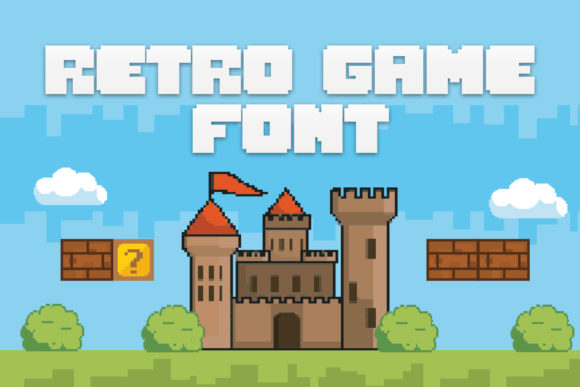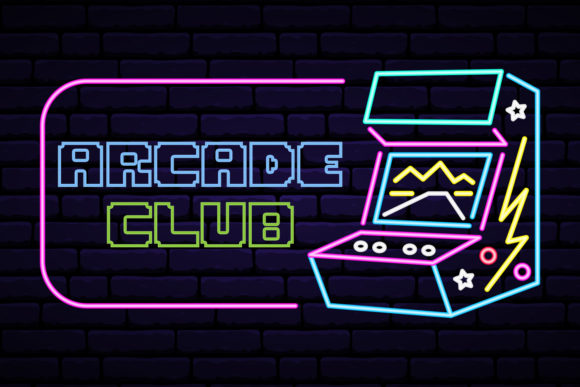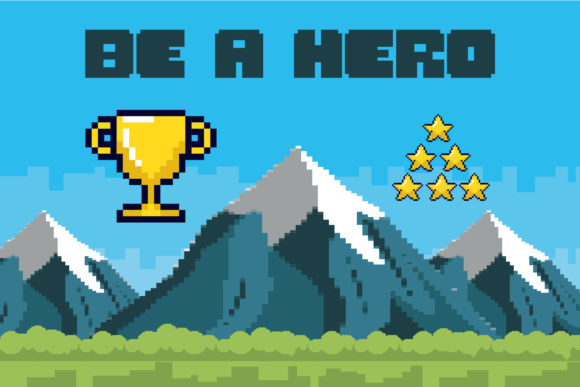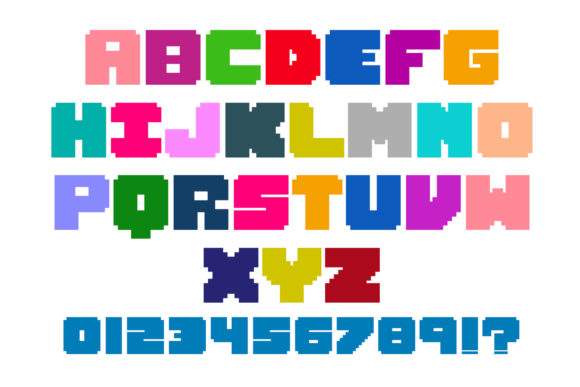
Retro Game Font
About the Retro Game Font
We are excited to introduce Retro Game Font, a must-have typeface for any serious designer. Retro Game is a bold and chunky lettered display font. Add this font to your creative ideas and notice how it will make them stand out!
Retro Game excels as a headline font for projects needing a strong, nostalgic feel. It’s ideal for posters, game-related branding, and packaging designs where a bold statement is required. Avoid using it for body text or UI elements; its chunky weight and large x-height make it unsuitable for extended reading.
The font’s personality is energetic and playful, yet undeniably retro. This makes it a good fit for brands targeting a younger audience or those aiming for a vintage aesthetic with a modern twist.
Pair it with a clean sans-serif like Open Sans for readability in supporting text, or a playful script font like Pacifico for a more whimsical feel. A geometric sans-serif like Montserrat could also offer a contemporary counterpoint to its retro charm.
Retro Game Font Usage Examples
Retro Game Font Example